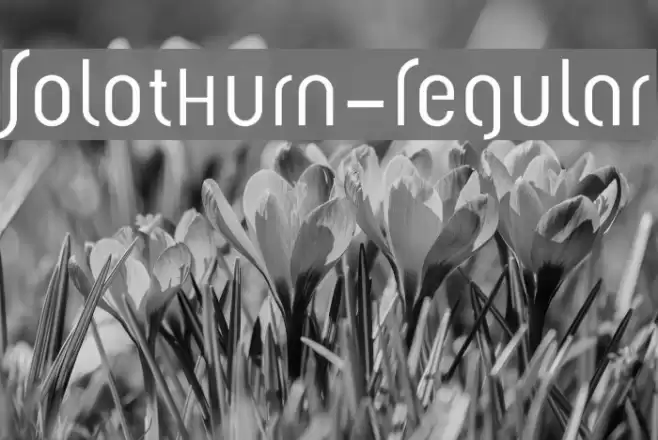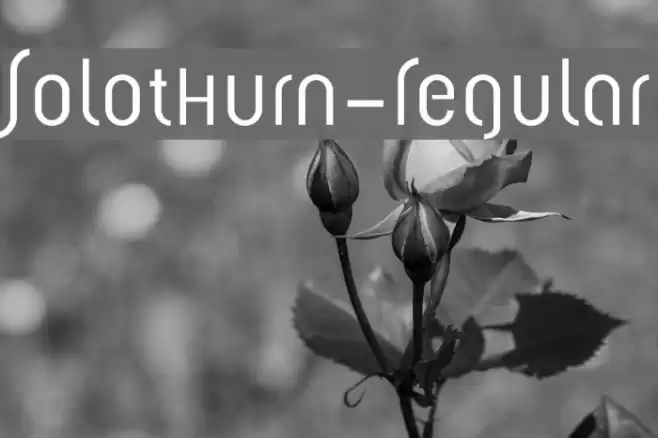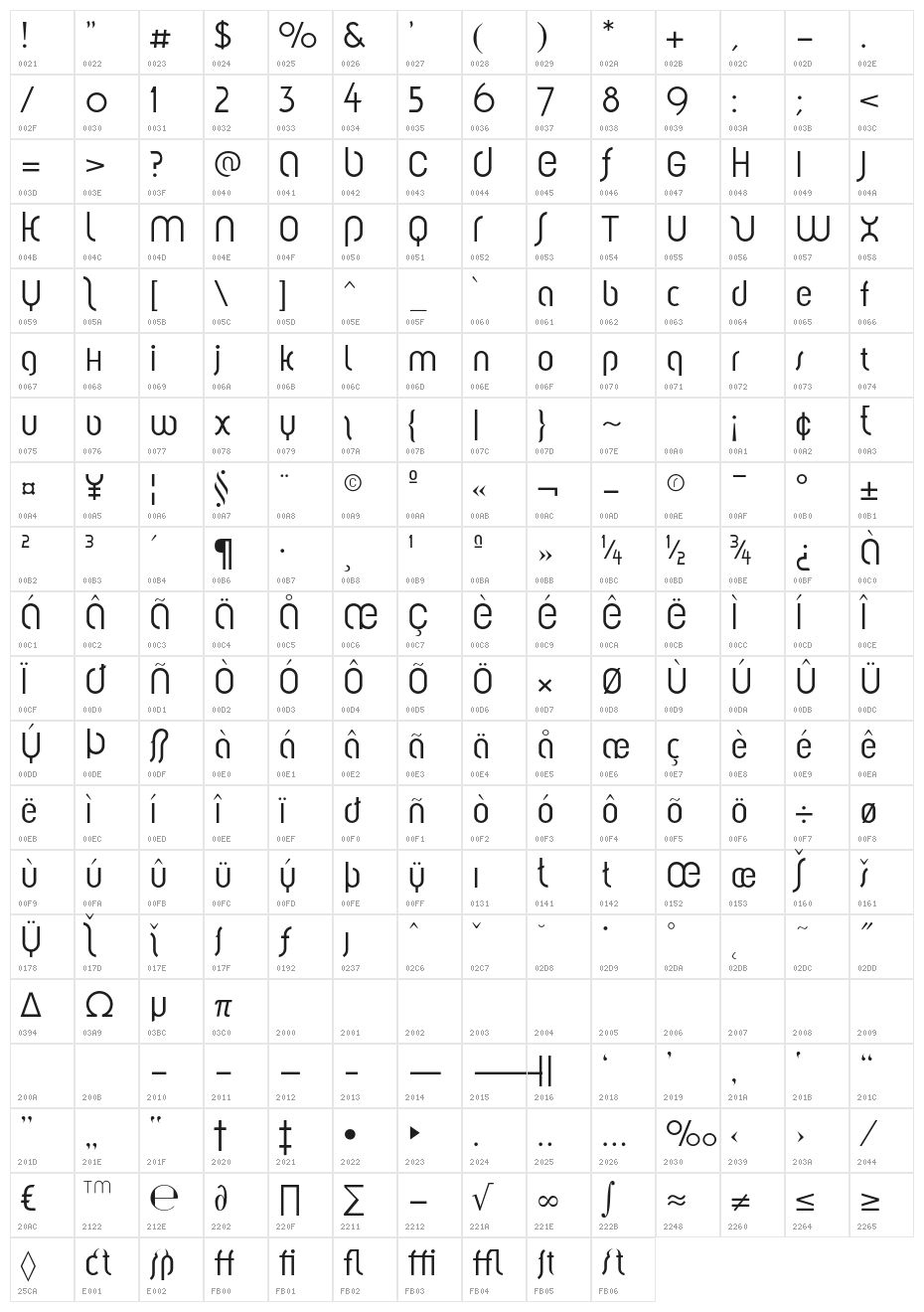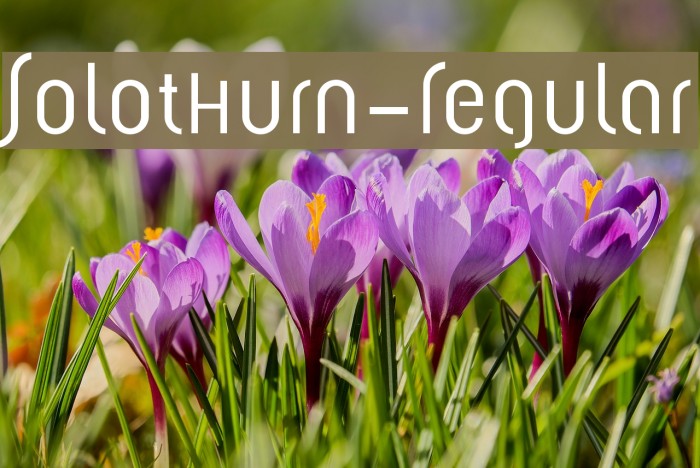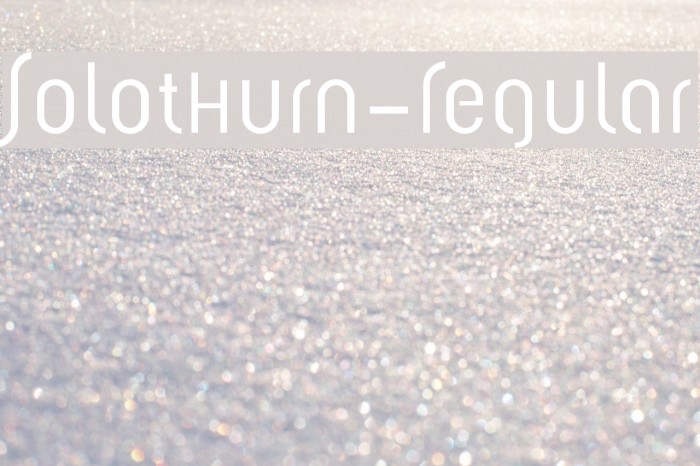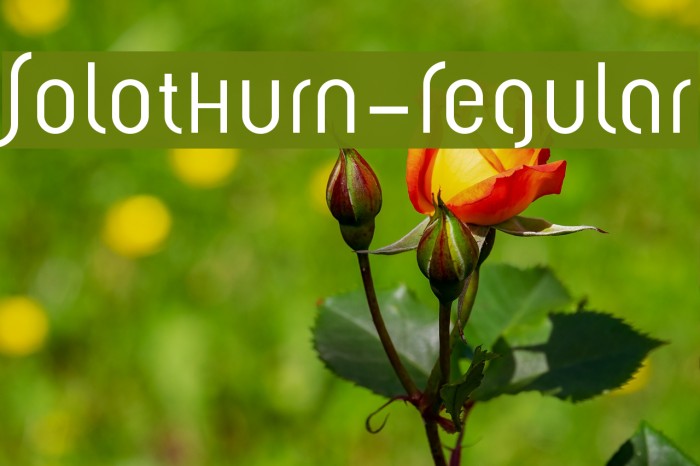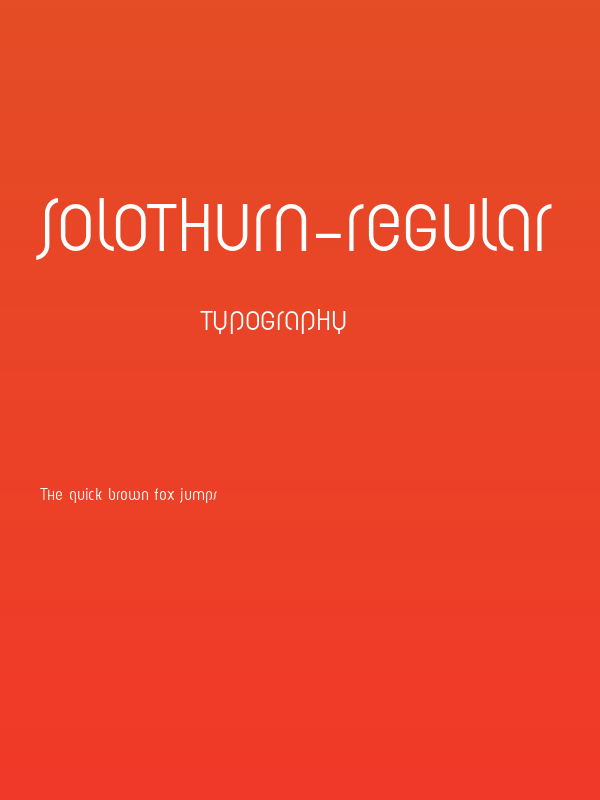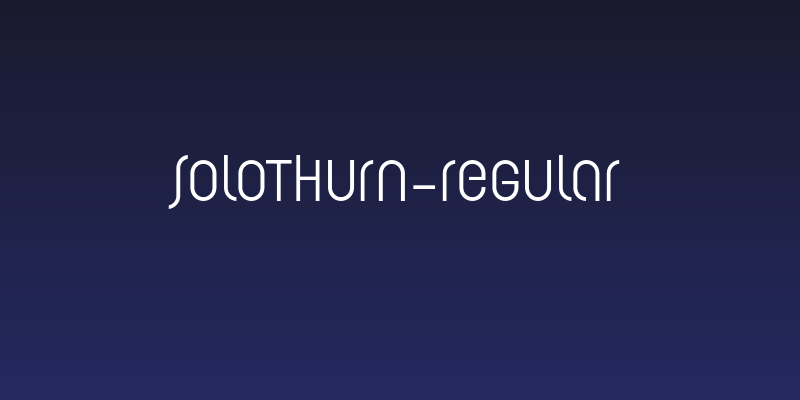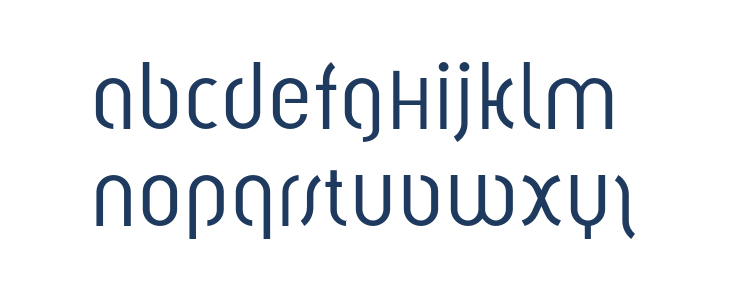
Solothurn-Regular Font
Solothurn-Regular Description
This font features a modern and geometric design with clean, rounded edges and a consistent stroke width. The characters exhibit a unique blend of curves and straight lines, creating a harmonious and balanced appearance. The uppercase letters are bold and assertive, while the lowercase letters maintain a softer, more approachable look. The numerals are clear and legible, making them suitable for various applications. Special characters are well-integrated, maintaining the overall aesthetic of the font. This typeface is versatile, offering a contemporary feel that can enhance both digital and print media.
A modern, geometric font with clean lines and rounded edges from Uncategorized fonts.
- Proposed Projects: Ideal for branding, advertising, web design, and editorial layouts.